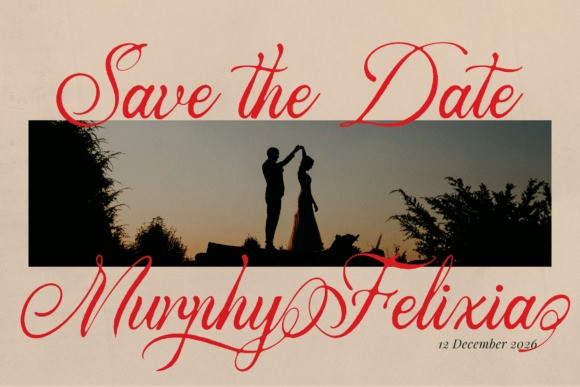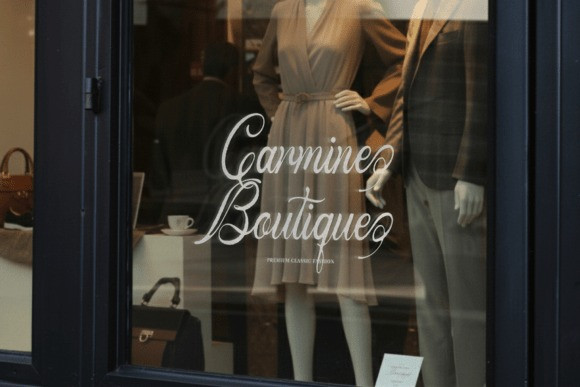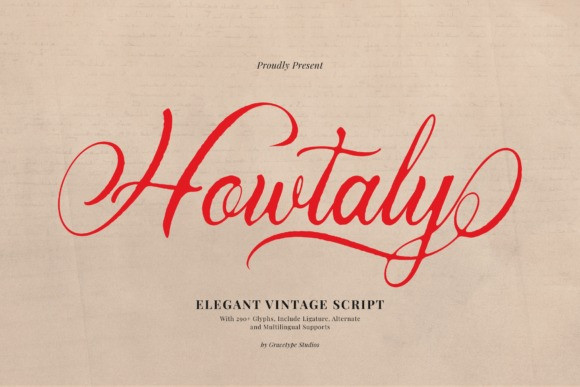
Howtaly Font
Howtaly Font an elegant vintage script designed for high-impact visual storytelling. Howtaly is an exceptional choice for luxury branding, bespoke wedding stationery, high-end editorial headers, and chic fashion logos.
Whether you are crafting a logo for a premium boutique or a standout title, this font delivers a sense of polished prestige and timeless beauty to your visual communication.